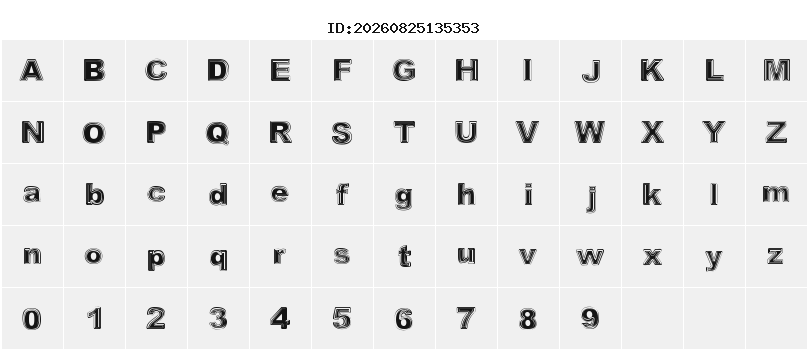
SUPERMARKET Preview
About SUPERMARKET.ttf
SUPERMARKET.ttf is a modern, elegant sans-serif font designed for ultimate readability and visual harmony. Perfect for branding, headlines, web design, and print materials.